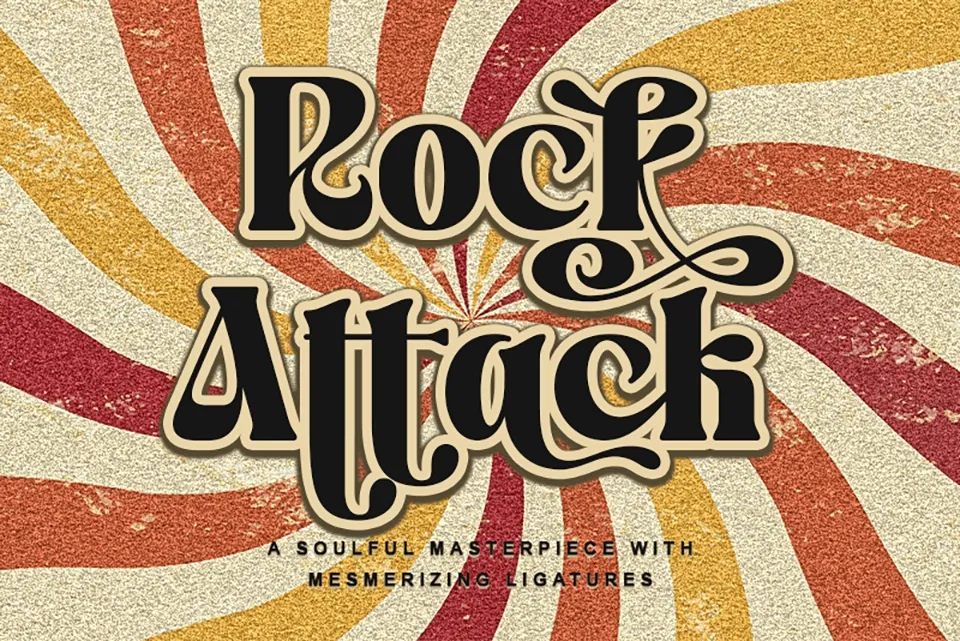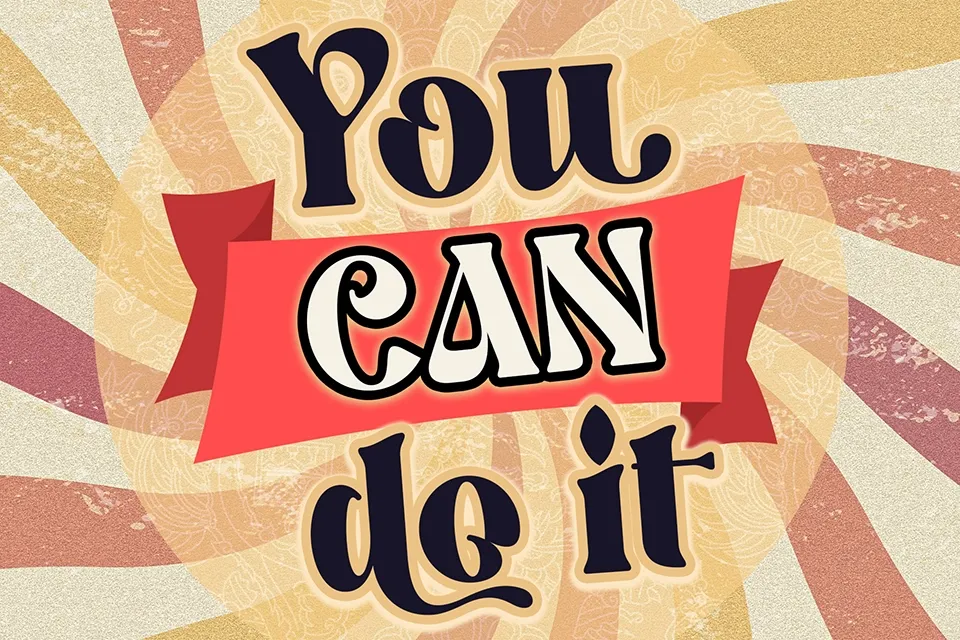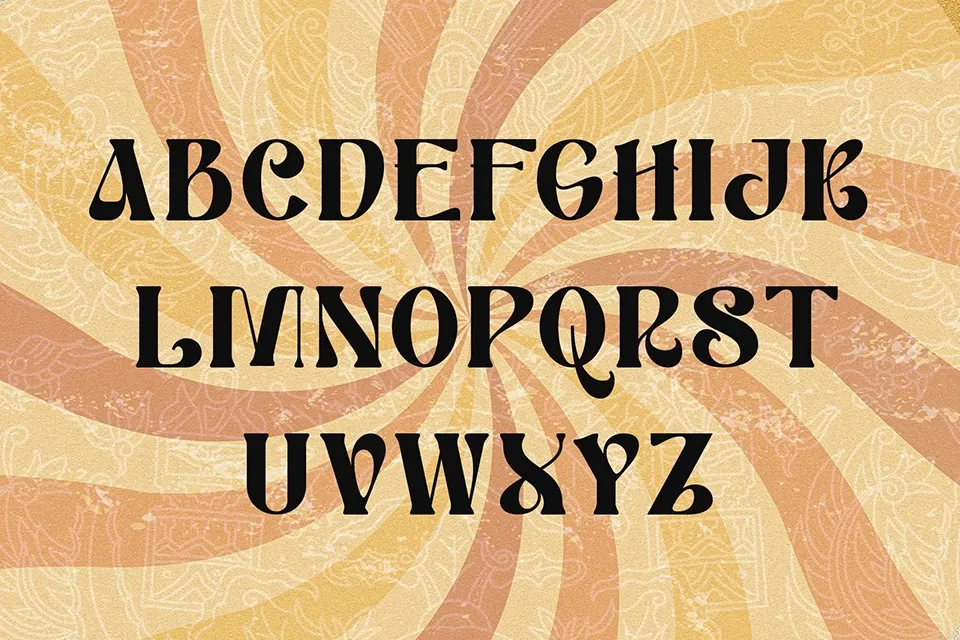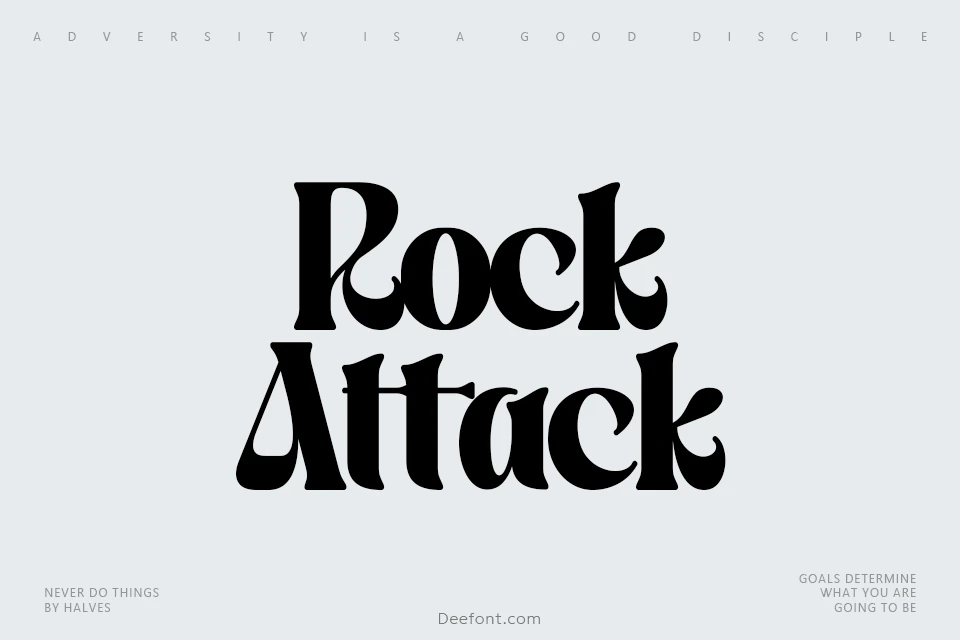
Rock Attack Font
Rock Attack, designed by Thomas Aradea, is a bold and soulful retro display font that channels the energy of classic rock aesthetics. Its thick, groovy letterforms create an impactful and expressive look, enhanced by what’s described as “mesmerizing ligatures” that add a unique flair. This font is perfect for projects demanding a strong vintage vibe, such as band logos, concert posters, album covers, merchandise, and headlines. Rock Attack brings a powerful, retro personality to designs, ensuring they stand out with a distinct, music-inspired style and a touch of soulful character.